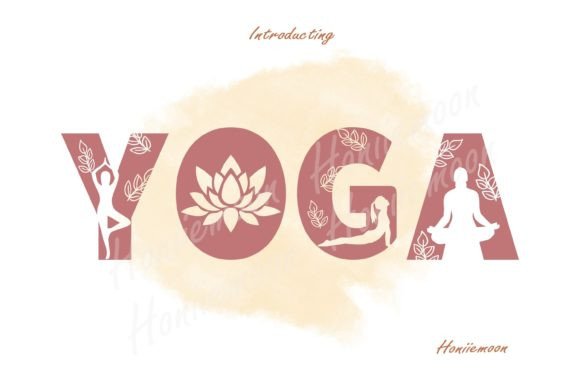
Introducing Yoga Font, the ultimate decorative font that will take your designs to a whole new level of coolness and fun! Created by the talented Honiiemoon, this font is the perfect addition to your collection if you're looking for a font that adds a touch of cuteness and jolliness to your creative projects.
With its unique and eye-catching design, Yoga Font stands out from the crowd and effortlessly captures attention. Whether you're designing an app, website, logo, or any other creative endeavor, this font is guaranteed to make your work come alive! Its playful nature adds a delightful charm that will captivate your audience and leave a lasting impression.
One of the key features of Yoga Font is its versatility. It seamlessly blends into various design styles, making it suitable for a wide range of projects. From children's books and posters to greeting cards and social media graphics, this font adapts effortlessly to any theme or concept you have in mind.
Not only does Yoga Font offer aesthetic appeal, but it also provides a seamless user experience. Its legibility ensures that your message is clear and easy to read, even at smaller sizes. Whether displayed on screens or in print, this font maintains its clarity and impact, ensuring that your designs are both visually striking and engaging.
But what truly sets Yoga Font apart is its ability to evoke emotions. Its cute and jolly nature instantly brings a sense of joy and playfulness to your designs. With each stroke, it spreads positivity and happiness, creating a connection with your audience on a deeper level. Users will be drawn to the cheerful vibes it emits, making it the perfect choice for any project aimed at captivating hearts.